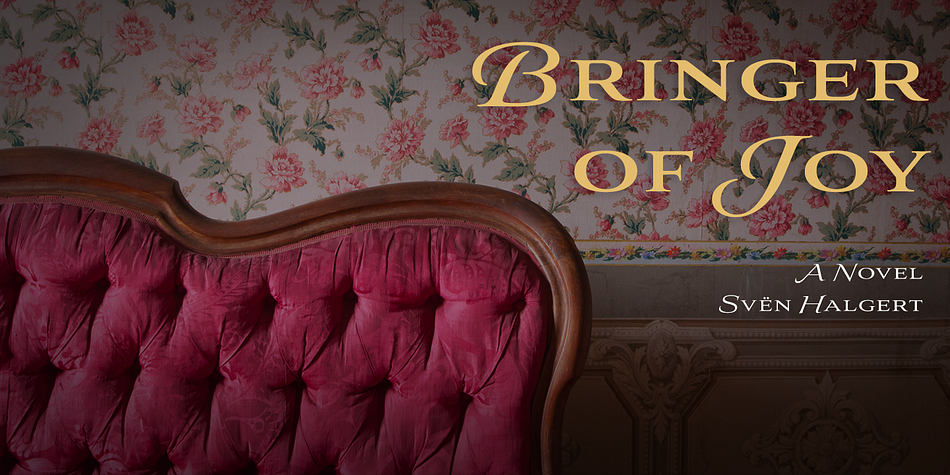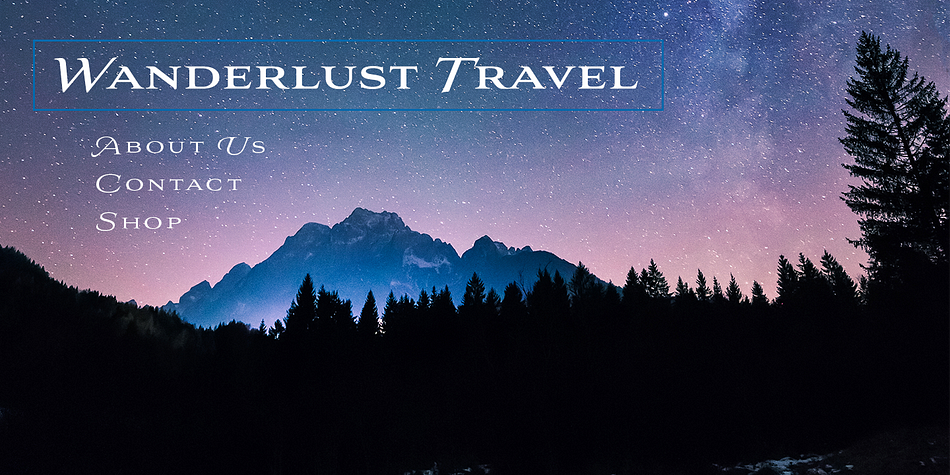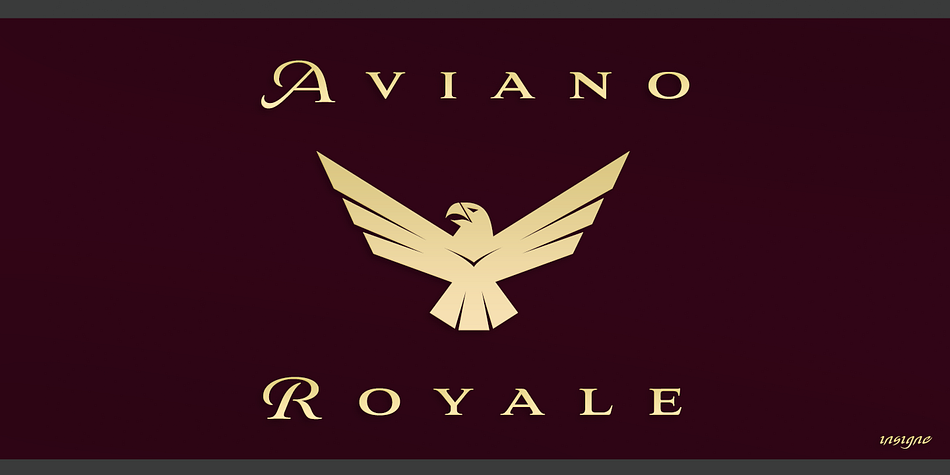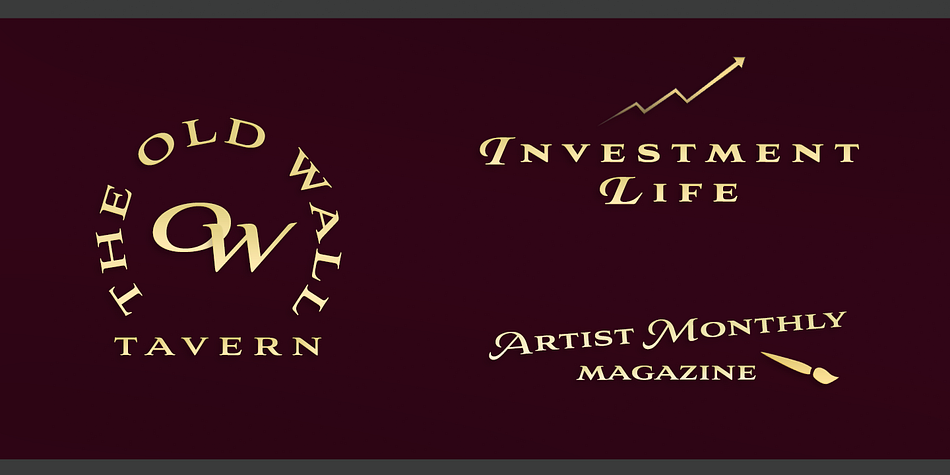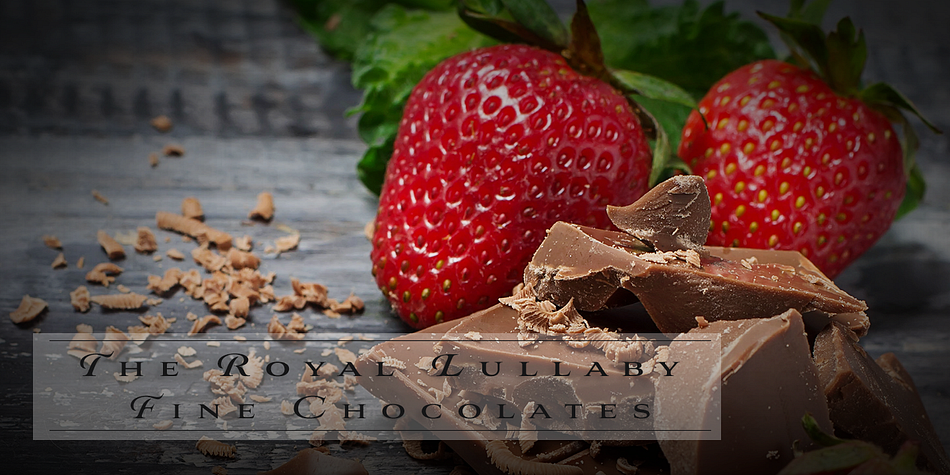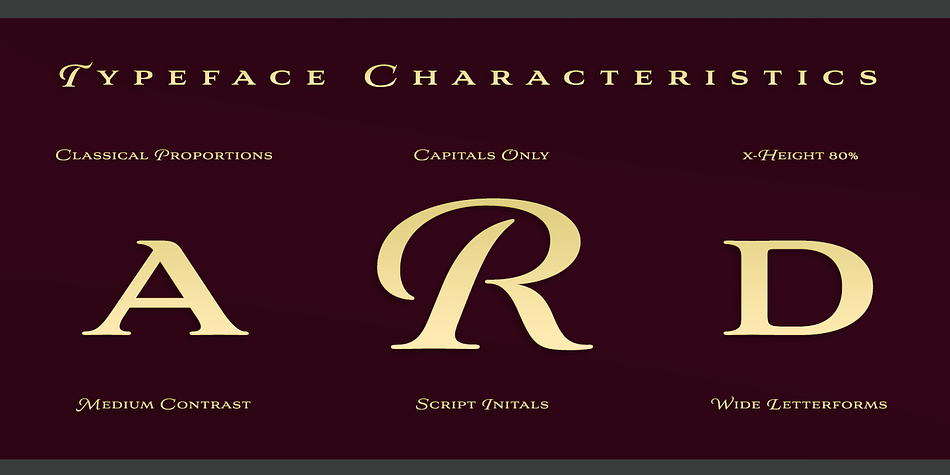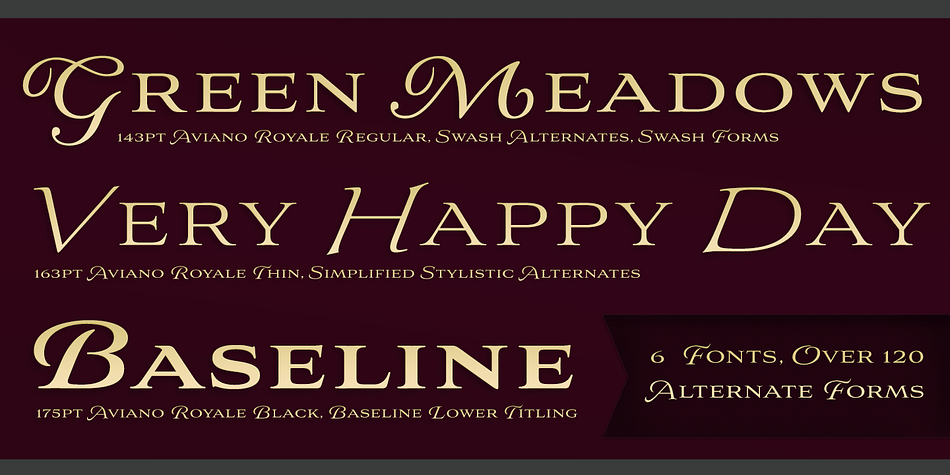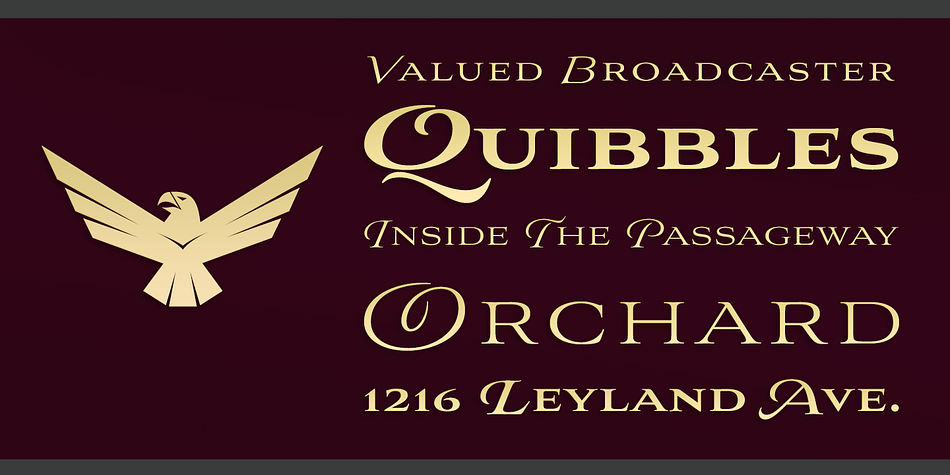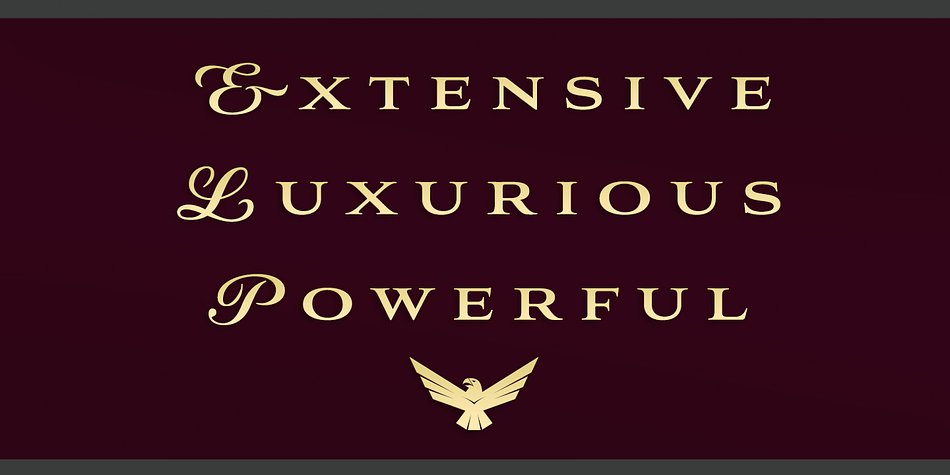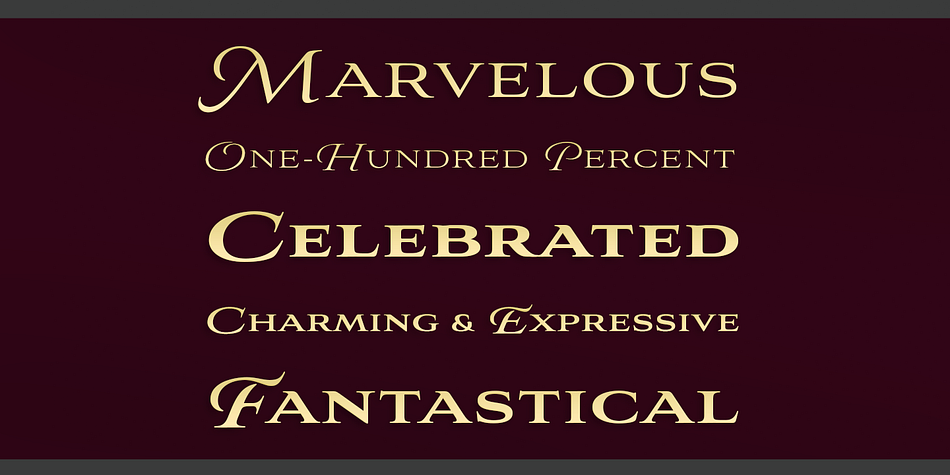
Aviano Royale is a display serif font family. This typeface has six styles and was published by Insigne Design.
Insigne’s powerful, premier Aviano returns to lend its classic line to its newest variation, Aviano Royale—named so because of the rich flow the calligraphic capitals give the established font. The extended lowercase characters give an air of formality to the face as well and bestow on the family a deeper sense of wealth and power.
This recent development of a timeless font, part of insigne’s annual tradition of adding to the Aviano family, was elected the clear winner in a poll of insigne design’s social media followers. And is it any wonder why? The long-handed elegance of Royale features graceful script capitals as well as widely tracked and smaller titling capitals, all which make Royale ideal in high-end applications and branding where titling with a taste of gentility is required.
Royale’s suite boasts a number of OpenType alternates, most importantly of which are the alternate forms for the capitals. Whereas the default forms of the face are regal, it’s flourishes must be activated through the swash set. For a look more restrained, activate the stylistic alternates. It’s like having three different fonts in one!
Additionally, there are baseline lowercase forms. The lowercase forms are 20% smaller in height than Aviano’s lowercase forms, so the families are not interchangeable. However, they can still be used well together. The script capitals could also be used separately as drop capitals and nicely complement any of the other 12 Aviano families.
It’s time to look beyond common. For the look of refinement you desire, design with Aviano Royale.